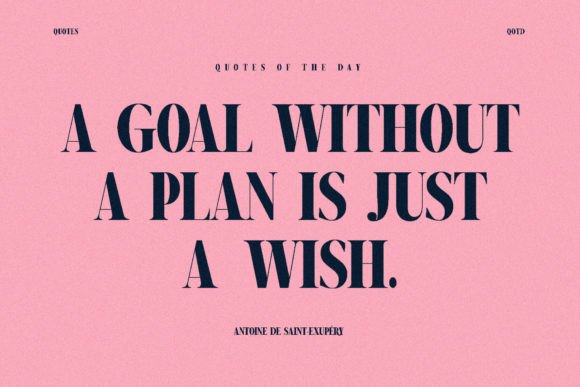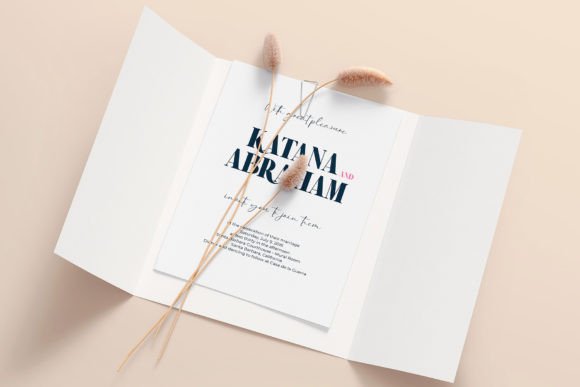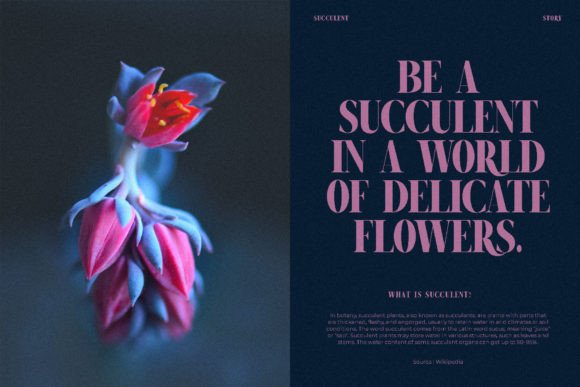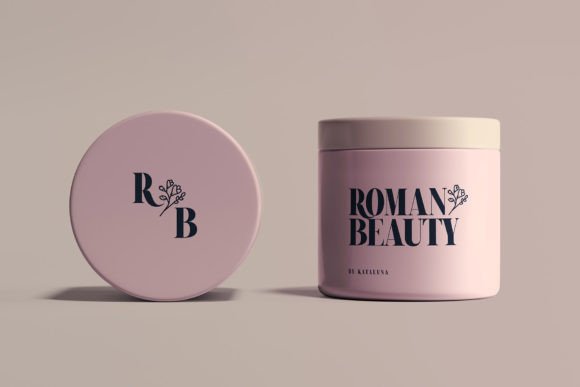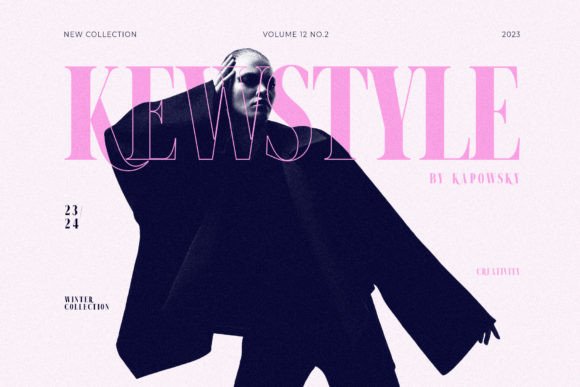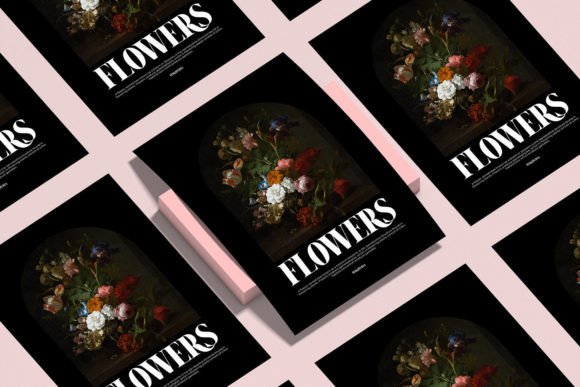
Introduction to Ramita Font
Ramita is an elegant serif font that exudes timeless sophistication.
With its refined letterforms and graceful serifs, Ramita lends a touch of class and elegance to any design Perfect for formal invitations, high-end branding, and editorial projects, Ramita adds a touch of timeless beauty to your typography.
Key Features of Ramita Font